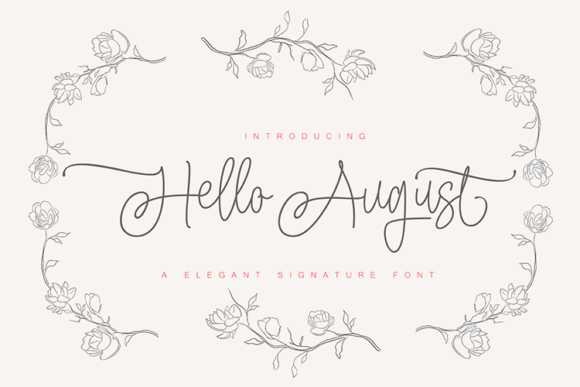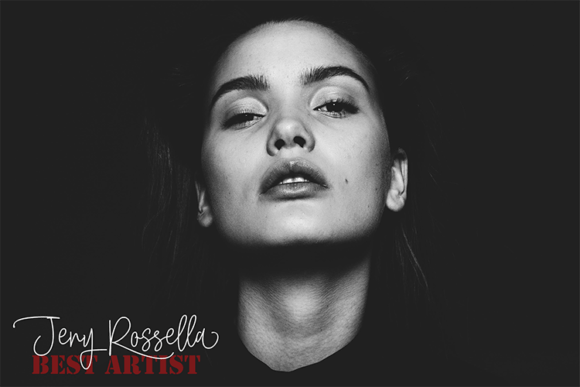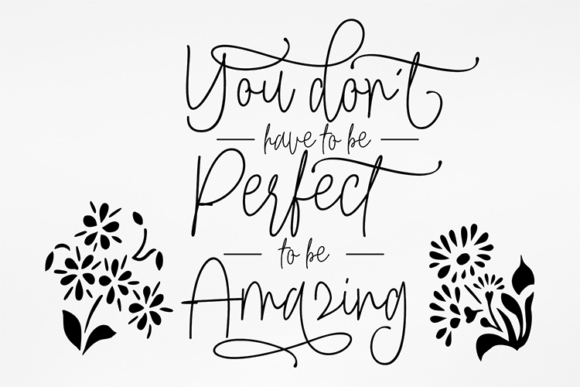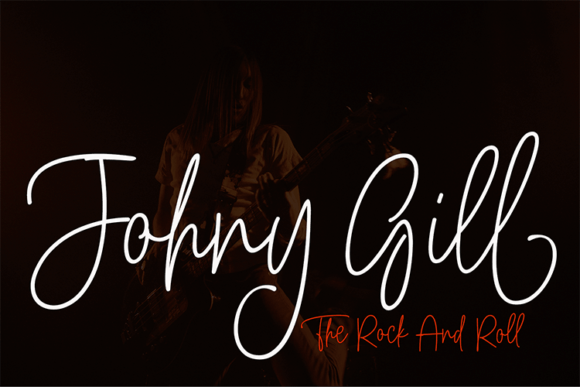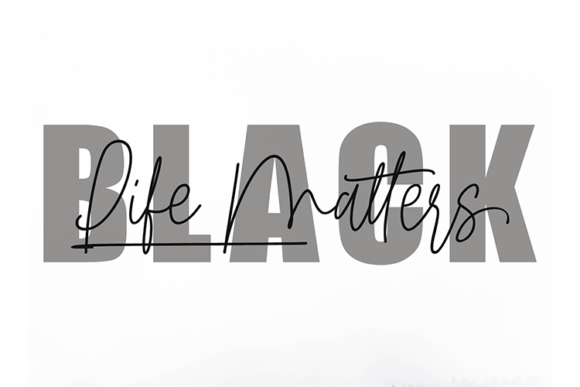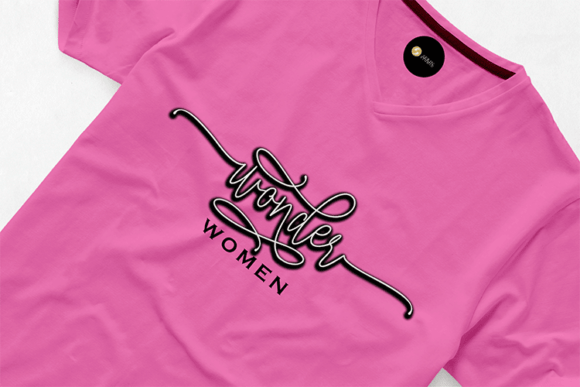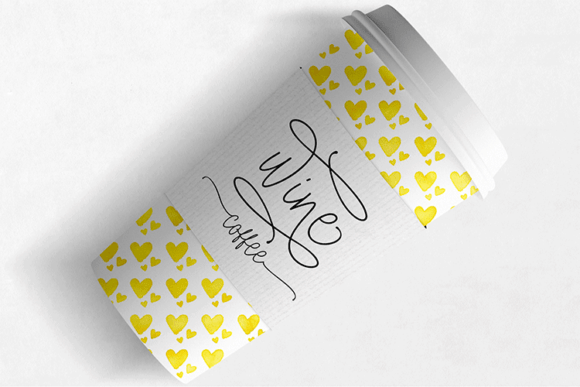
The Perfect Script Font for Your Next Creative Project
As you sit down at your desk, surrounded by blank sheets of paper and a mind full of ideas, you know that the right font can make all the difference. There’s something about the blank slate that’s both thrilling and intimidating – the possibilities are endless, and the pressure to create something truly special is on.
Enter the Hello August Font, a dazzling script font that’s sure to elevate your next project to new heights. With its neatly crafted and highly detailed design, this font is the perfect addition to any designer’s library. Whether you’re working on a wedding invitation, a birthday card, or a marketing campaign, the Hello August Font has the potential to bring your creation to life in a way that’s both beautiful and effective.
With its PUA encoding, accessing all the glyphs and swashes is a breeze, making it easy to customize and add a personal touch to your designs. Whether you’re a seasoned pro or just starting out, the Hello August Font is a valuable asset that’s sure to become a go-to favorite in your toolkit.
Hello August Font Key Features
- Font Family: Hello August, a modern and elegant script font
- Font Size: Designed to be used at sizes ranging from 12pt to 72pt, with optimal readability at 24pt and above
- Resolution: Suitable for both screen and print use, with a resolution of 300 DPI for high-quality printing
- Unique Characteristics: Features a mix of handwritten and calligraphic elements, with subtle flourishes and connector strokes for a personal touch
- Language Support: Supports Latin-based languages, including English, Spanish, French, and many others
Hello August Font Review
Overall, I was really excited to dive into the Hello August Font. It’s got a fun, modern vibe that’s perfect for creative projects. Here are some things that stood out to me:
- ✨ The font has a nice balance of playfulness and sophistication, making it suitable for a wide range of designs.
- ✨ The character set is well-designed, with clear and legible letterforms.
- ✨ The font is highly customizable, with a range of options for adjusting weight, size, and spacing.
However, I did encounter some limitations that prevented me from giving it a full 5-star review:
- ⚠️ The font is not as versatile as I would have liked, particularly when it comes to pairing with other fonts. It’s best used as a standalone font.
- ⚠️ Some of the characters, particularly the punctuation marks, feel a bit inconsistent with the rest of the font.
- ⚠️ The font’s bold weight feels a bit too heavy-handed, which can make it difficult to read in certain contexts.
Overall, I would give the Hello August Font 4 out of 5 stars. It’s a solid choice for designers looking for a modern, playful font, but it falls short in a few areas. With some refinement and expansion, I think this font could be truly exceptional.
“Hello August Font” is ideal for:
Summer-themed designs, invitations, and social media posts.
Wedding and event invitations, especially those with a summer or outdoor theme.
Travel and adventure-inspired designs, such as travel brochures or blog posts.
Experiment with different font sizes, colors, and styles to create a unique look.
Pair “Hello August Font” with other summer-themed elements, such as beach balls or sunglasses.
Use it in combination with bold and bright colors to create a playful and eye-catching design.